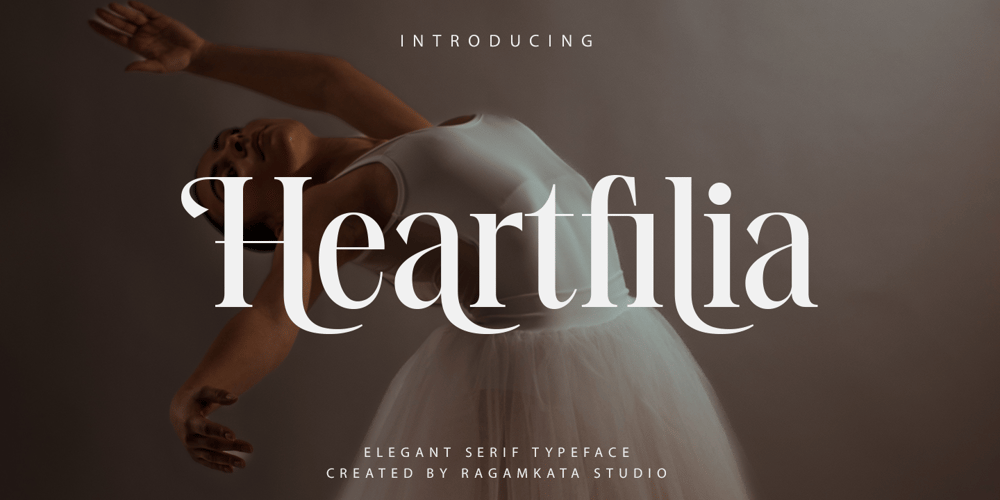
Heartfilia Font Family was designed by Yogiswhara Dio Prakoso Riadi and published by RagamKata. Heartfilia contains 2 styles and family package options. Heartfilia, this font is as elegant as its name. It’s unique look makes it incredibly authentic serif font. The font gives off an elegant and classic feel, while still appearing modern and in line with the current design trends. Orchestra is a well- suited font for a high-end design, makes it more eye-catching. Orchestra will make your designs, such as invitations, posters, product package design, and many more, looks more exclusive and luxurious. Enhance your design by the elegant yet classic appearance of Orchestra.